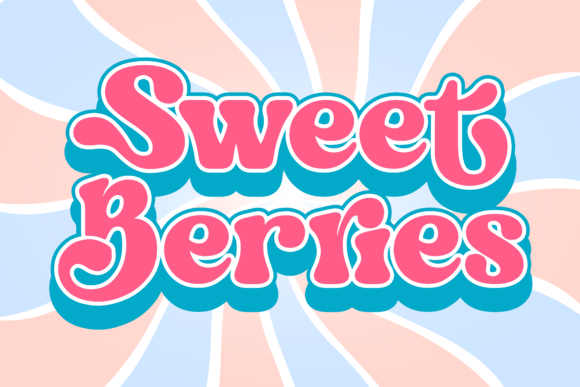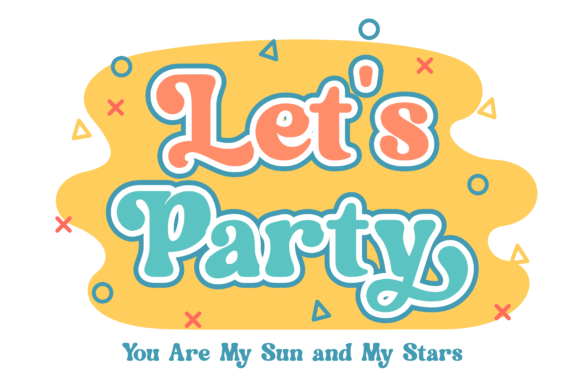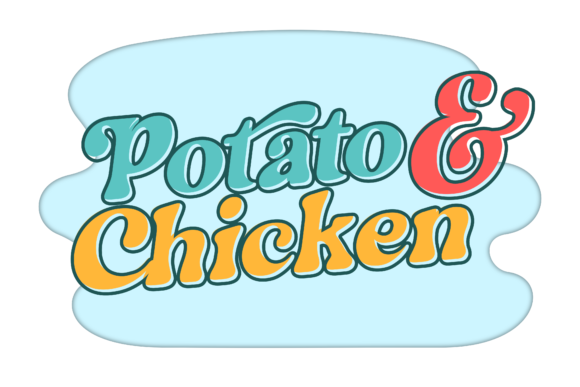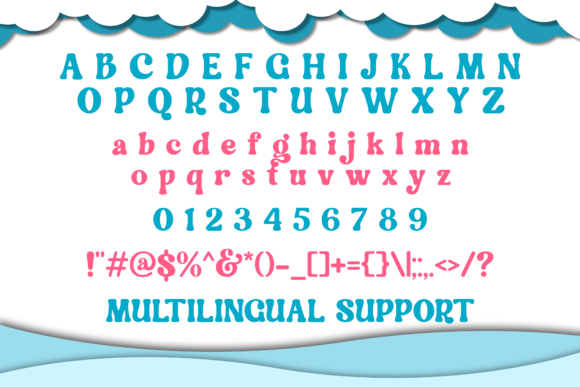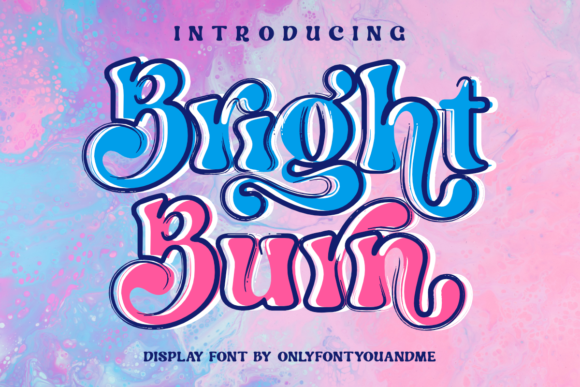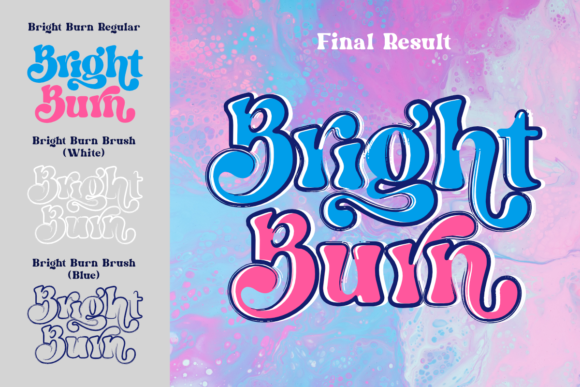
Introduction to Bright Burn Font
Bright Burn is cool, retro and fun display font.
This font is PUA encoded which means you can access all of the glyphs and alternates with ease It will look great on headlines, magazines, logos, branding and so much more.